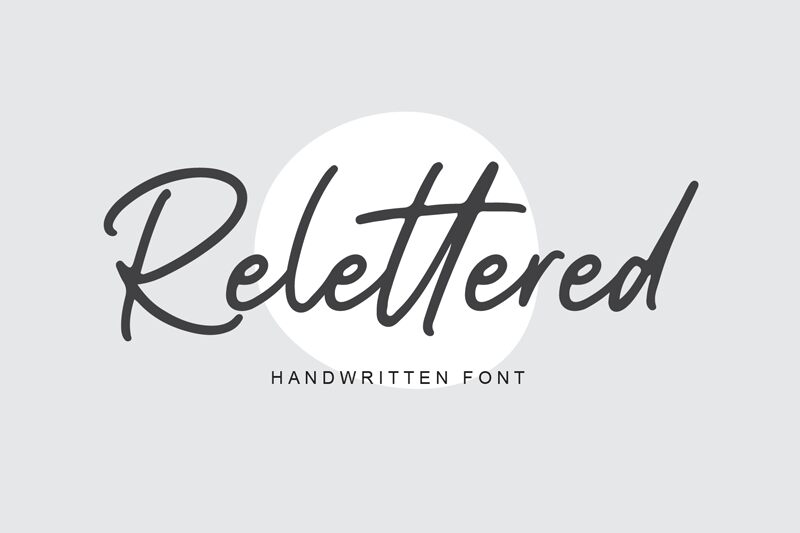
Relettered is a cool handwritten font designed by Agung Rohmat with a light weight. Perfect for modern projects, this font can be used to create stylish titles, logo designs and posters. It will also add a unique touch to book covers and invitations!
Relettered